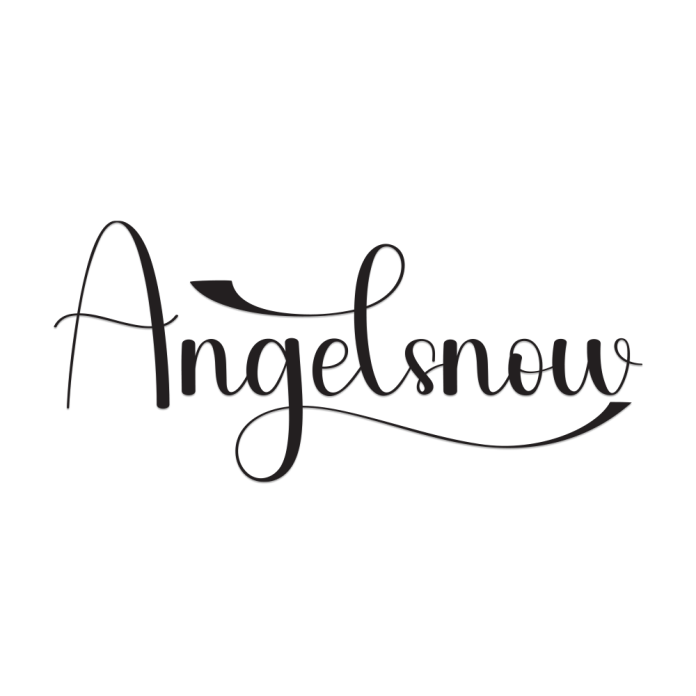
Angelsnow is a delicate and graceful handwriting font that feels like freshly fallen snow on a winter morning. With its soft, flowing curves and gentle letterforms, this font brings a romantic and refined touch to any design.
Perfect for wedding invitations, love letters, feminine branding, seasonal greeting cards, and quotes, Angelsnow adds a touch of elegance and warmth to your creations.
Soft and elegant handwritten style
Smooth strokes with a personal, romantic feel
Ideal for weddings, winter-themed designs, stationery, and branding